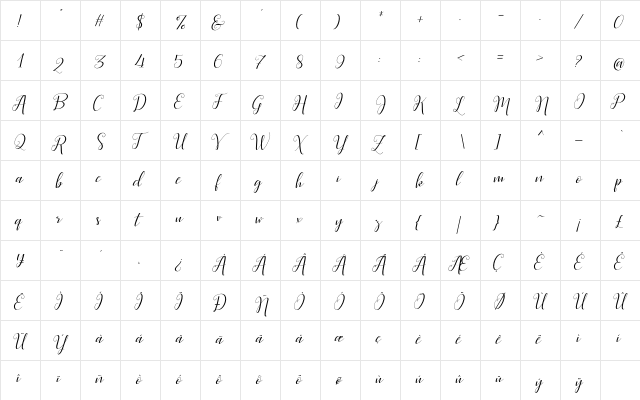
Scarlett Script Slant
| Foundry | FERDIANSYAH_ijemROCKART |
| Designer | FERDIANSYAH_ijemROCKART |
Design Context for Scarlett Script Typeface
Scarlett Script brings a calligraphic fluidity to the page — its connecting strokes and expressive curves give it an unmistakably human quality.
Font Pairing: Combine Scarlett Script with a simple geometric sans for maximum contrast — the tension between flowing curves and clean structure is a classic typographic pairing.
Pro Tip: Pair Scarlett Script with a clean sans-serif for supporting text. The contrast between fluid script and geometric structure creates an elegant typographic hierarchy.